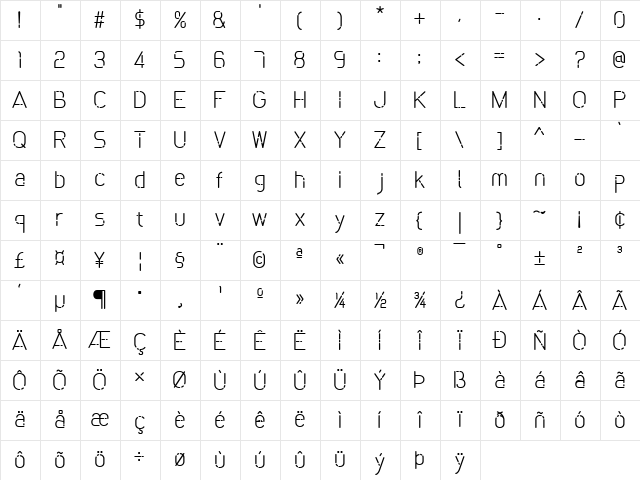
BOKEH Regular
Foundry: www.greenegg.co.kr
Designer: greenegg
Design Context for BOKEH
BOKEH is a composed and adaptable typeface that performs quietly and consistently across a wide range of design contexts.